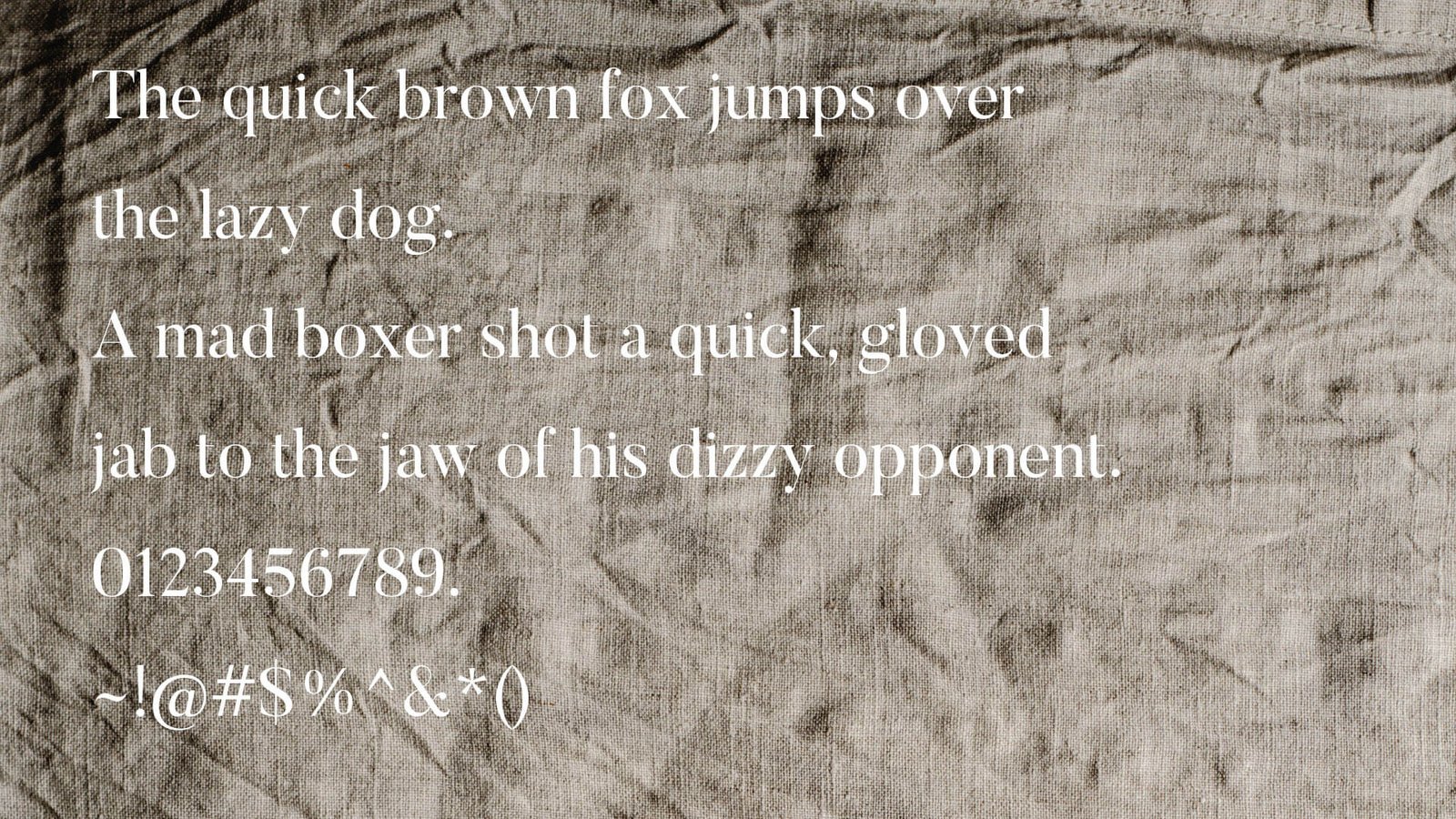
The Butler font is a very clear font. That belongs to the serif typeface family. It was presented by Fabian De Smet.
This font is established in Twentieth-Century. It is perfectly working for the posters, headings, titles, and much more. You can use this modern typeface for your different designs.
This font family contains more than 270 unique glyphs. And 376 modern characters carry uppercase, lowercase, numerals, punctuations, and special characters. It can be used in pairing with Fibre Font. File formats are available in OTF. And TTF.